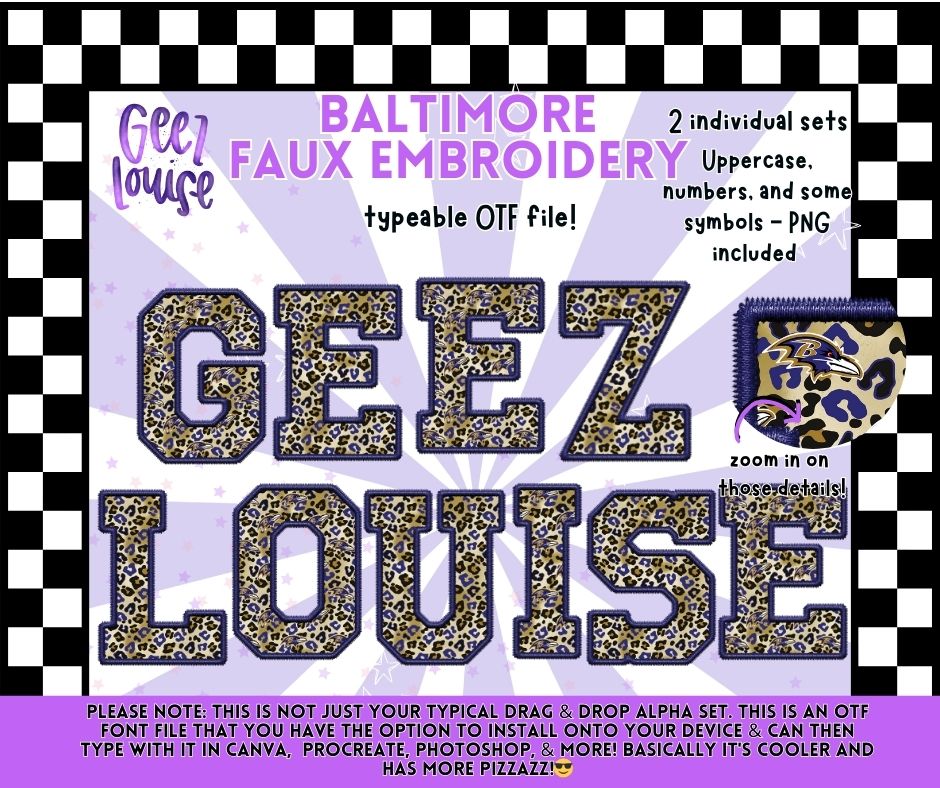
Baltimore Faux Embroidery Typeable OTF Alpha Font + PNG Sets
Crank the sass all the way up with Baltimore Faux Embroidery Alpha, a bold, stitched-up typeable OTF font bursting with leopard print, texture, and unapologetic flair.
🎨 Design Style
Colorful leopard print with faux stitched embroidery edges Bold, playful, and full of personality Perfect for tees, tumblers, sublimation, branding, social media graphics, and digital designs that need to shout (not whisper)
If you’re over basic fonts and ready for something with stitched swagger and serious pizzazz, Geez Louise delivers.